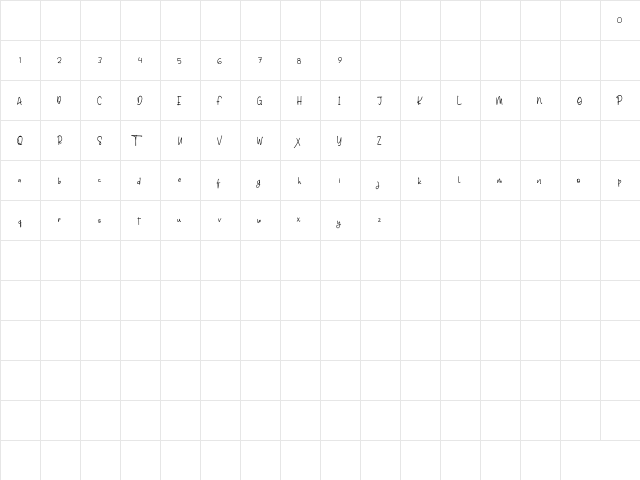
Fancy Epic Regular
| Designer | OnimStudio |
Design Context for Fancy Epic Typeface
Fancy Epic is a composed and adaptable typeface that performs quietly and consistently across a wide range of design contexts.